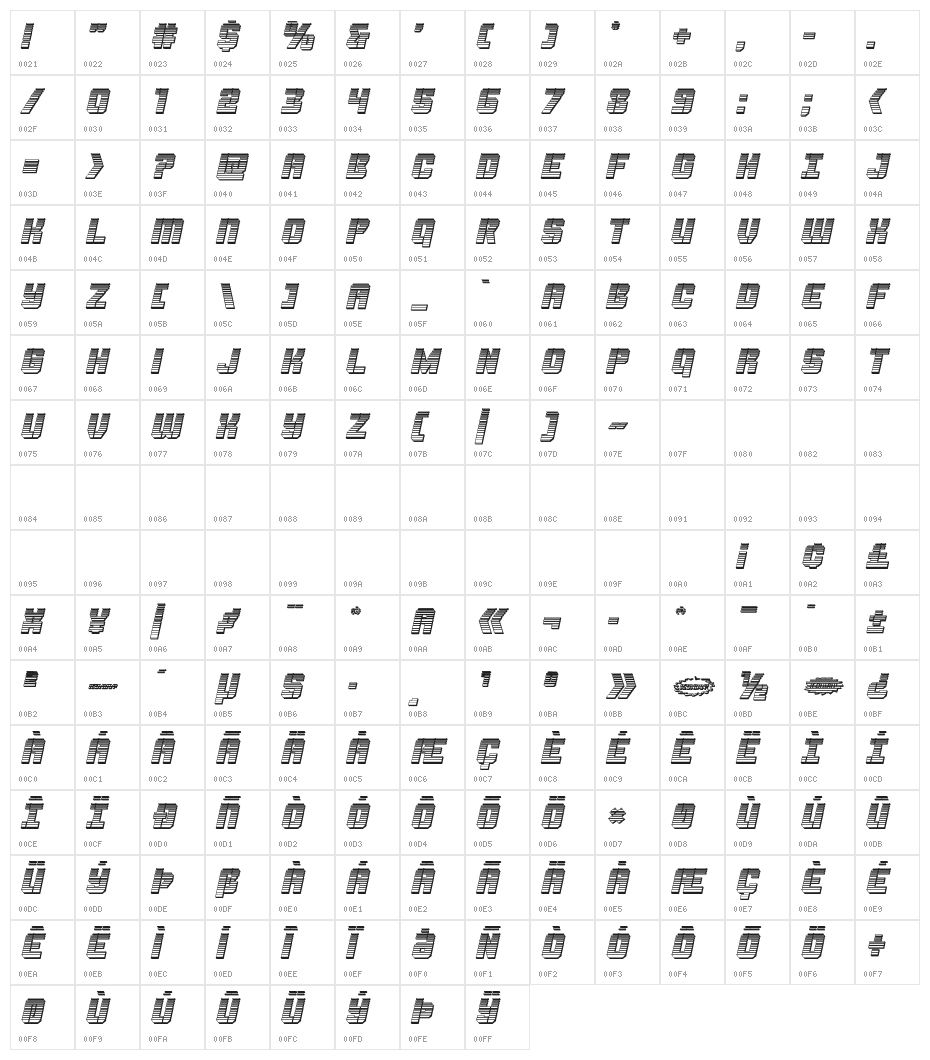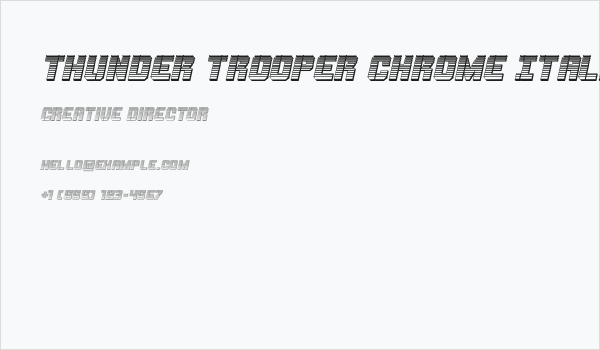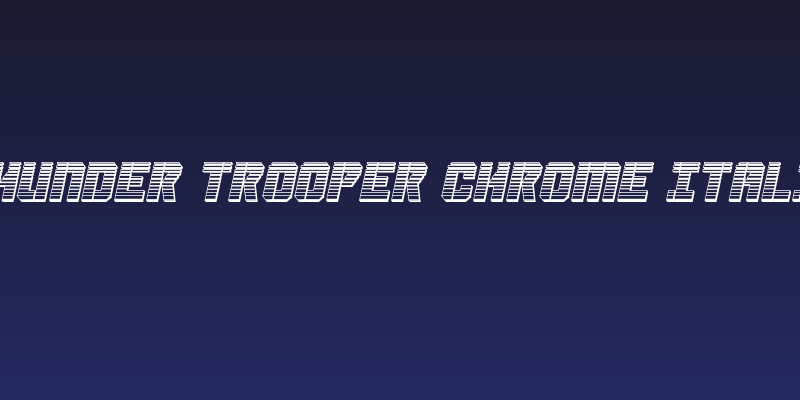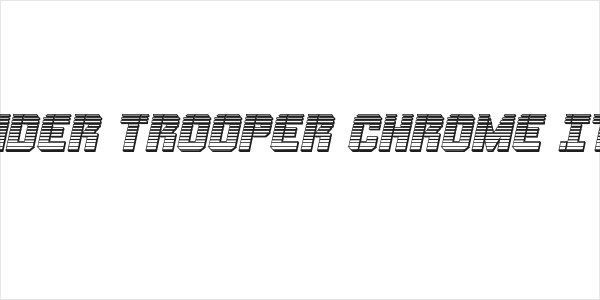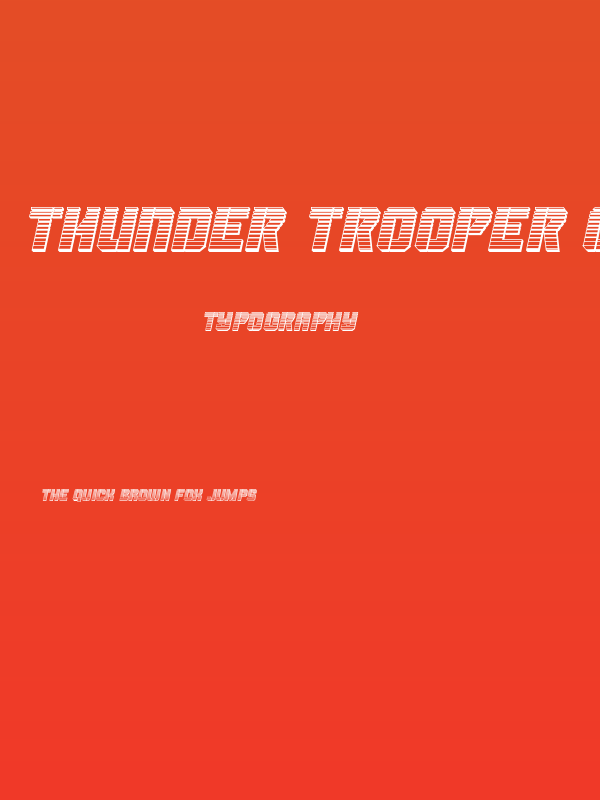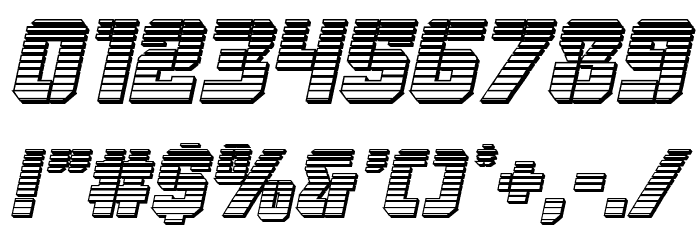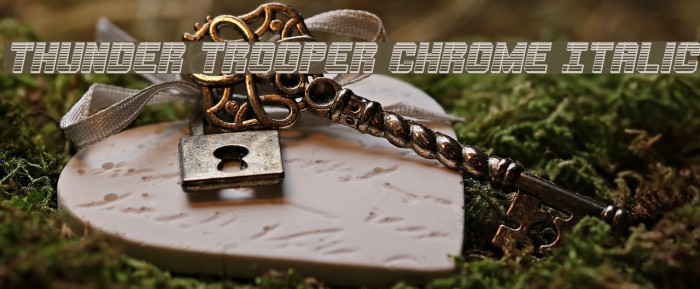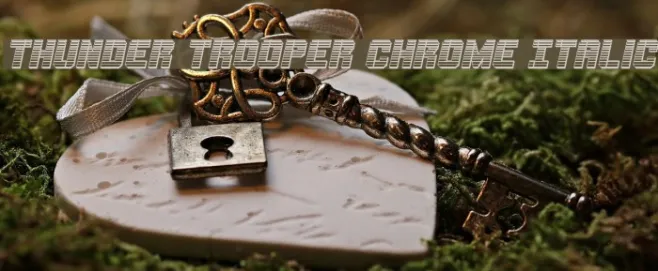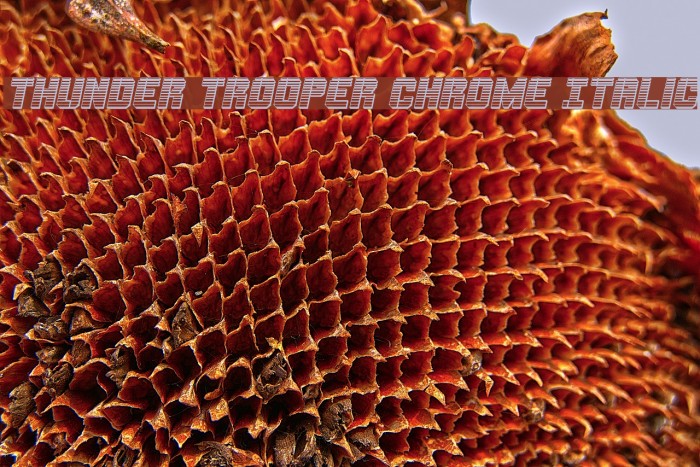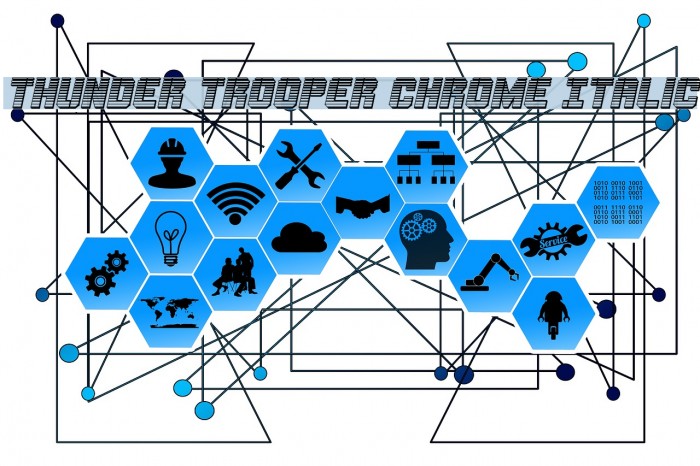
Thunder Trooper Chrome Italic Font
Thunder Trooper Chrome Italic Description
This font features a bold, futuristic design with a three-dimensional, chrome-like appearance. The characters are constructed with parallel lines that create a sense of depth and movement, giving them a dynamic and eye-catching look. The italic style adds a forward-leaning slant, enhancing the sense of speed and modernity. Each letter and number is distinct, with sharp angles and a consistent geometric structure that maintains readability while offering a unique visual impact. The special characters are crafted with the same attention to detail, ensuring a cohesive appearance across all glyphs.
| Proposed Projects | Ideal for sci-fi themed designs, video game titles, tech branding, and futuristic posters. |